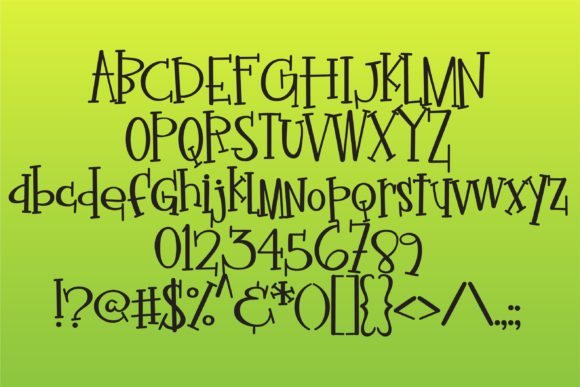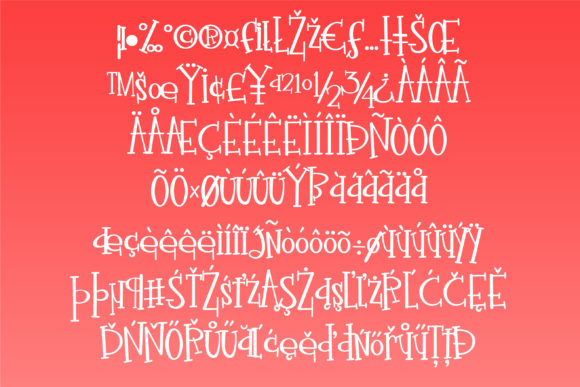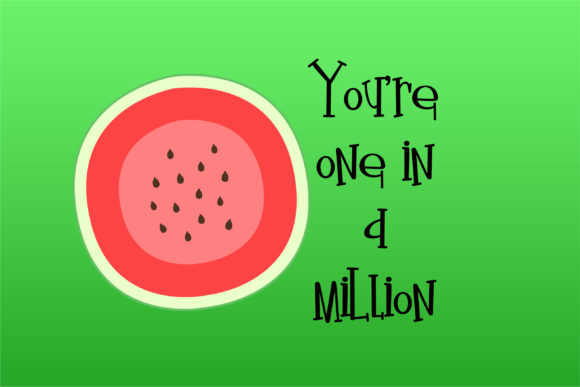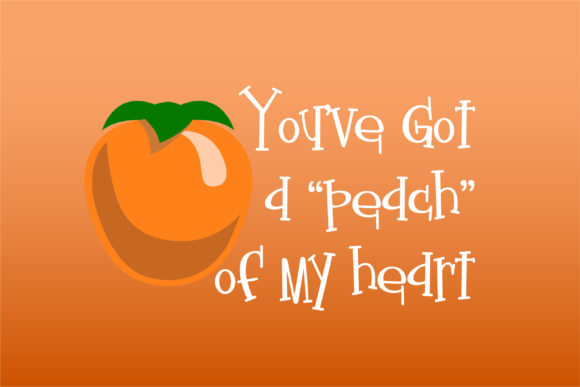
Introduction to Honeygrapple Font
Honeygrapple is a whimisical and playful script font with a unique twist.
Get inspired by this adorable font .
Key Features of Honeygrapple Font
Why Choose Honeygrapple Font?
Honeygrapple Font offers exceptional quality and versatility, making it a valuable addition to your design toolkit. Whether you’re creating for personal projects or commercial use, Honeygrapple Font delivers professional results.